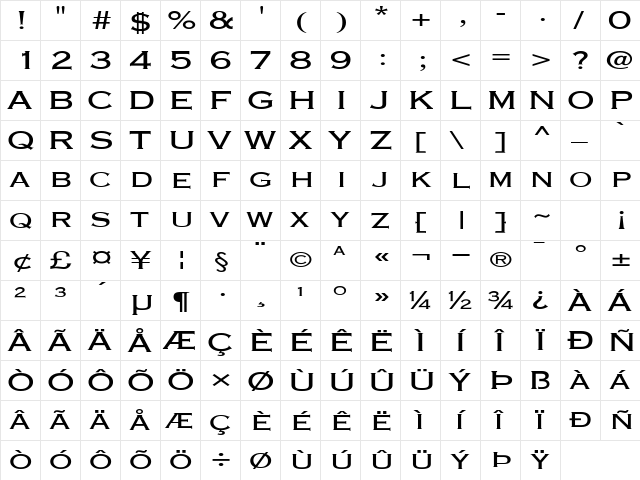
MetalcutExtended Regular
Design Context for MetalcutExtended Typeface
MetalcutExtended offers clean, dependable letterforms without strong stylistic allegiance, making it a practical choice for designers who need flexibility.